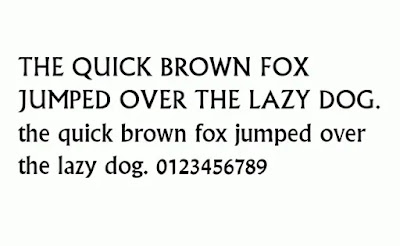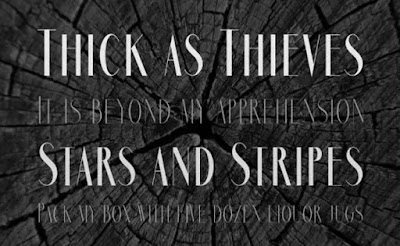
Top 10 Cool Fonts Families
Long Cool family
Long Cool Woman Font is an essential different text style family that contains astonishing glyphs and characters. It has made by Mr Rich Gast just because.
Also, he discharges it by means of his sort foundry GreyWolf Webworks in 1999. He attempts to put something new touch that never being put by anybody.
What's more, I think he has accomplished his objective by means of that variable typeface. Since it has highlighted the over enormous x-stature with interesting cursive strokes.
Going with this assortment in printed structure, it considers itself to be a magnum opus ever. Due to the plan feel the sentiment of printed control using this astounding text style.
Woodstock Font Family
Woodstock Font is an enriching textual style accompanies a la mode and striking characters. The Linotype Design Studio has made it and they discharge it just because during 2011.
That wonderful textual style has following the best possible dividing and cushioning strategy. While the originators have placed the anomaly in each character.
That' why, you will see it looks flawless and clean and its character shows the humble and coolest touch. That makes it ideal for show just as printing errands.
This is the means by which a few typefaces are utilized in bigger spots like pennants, covers. Furthermore, some are utilized in littler spots like statements, passages. So because of its thick and substantial letters, it has ideal for enormous spots.
The Sims 4 Font Family
The Sims 4 Font is completely founded on The Sims 4 game logo. It's a real existence recreation computer game that was declared on sixth May 2013. This game was distributed by Electronic Arts.
Marbre Font Family
Marbre Font is an essential sans serif text style that highlighting thin and clean surface all through the typeface. This is more often than not utilized text style in design magazines.
A french text style fashioner Mr Youssef Habchi took the charge for structuring it and discharging it just because on 31 January 2014. Because of the originator's difficult work, it will spell enchantment on the structure's literary courses of action for sure.All the letters including follow an appropriate benchmark and extensive delicate surface as should be obvious in pictures. So as indicated by the prerequisites of the cutting edge period its a perfect work of art.
Nova Font Family
Nova Font is a fundamental sans serif text style that highlighting medium strokes and a spotless look. Mr. Billy Argel has taken the charge for planning and discharging it just because on eighth April 2014.
Each character including it contains its own interesting stream passing on an appealing printed game plan. It assists with improving to the past and furthermore for the future typographic conventions.
Having wide language support, sharp qualities, upper/lowercase help, kerning and OpenType highlights that essential text style has about everything that a sharp structure requires.
So we can say that it's an ideal typeface to be utilized in an assortment of structuring activities. That is the reason effectively a tremendous measure of specialists are using it.
Stingray Font Family
Stingray Font is a content manually written text style that accompanies snazzy letters. A French-based text style planner Mr Youssef Habchi took the charge for structuring and discharging it just because on second May 2018.
Every single letter including highlights a propelled structure especially manually written surface. Thusly, numerous planners are rehearsing and accomplishing sharp structures needs consistently.
The whole typeface gives a too cool look simple to peruse at whatever point. Along these lines, you simply view the textual style lettering pictures we attach in here to get a handle on a feeling.